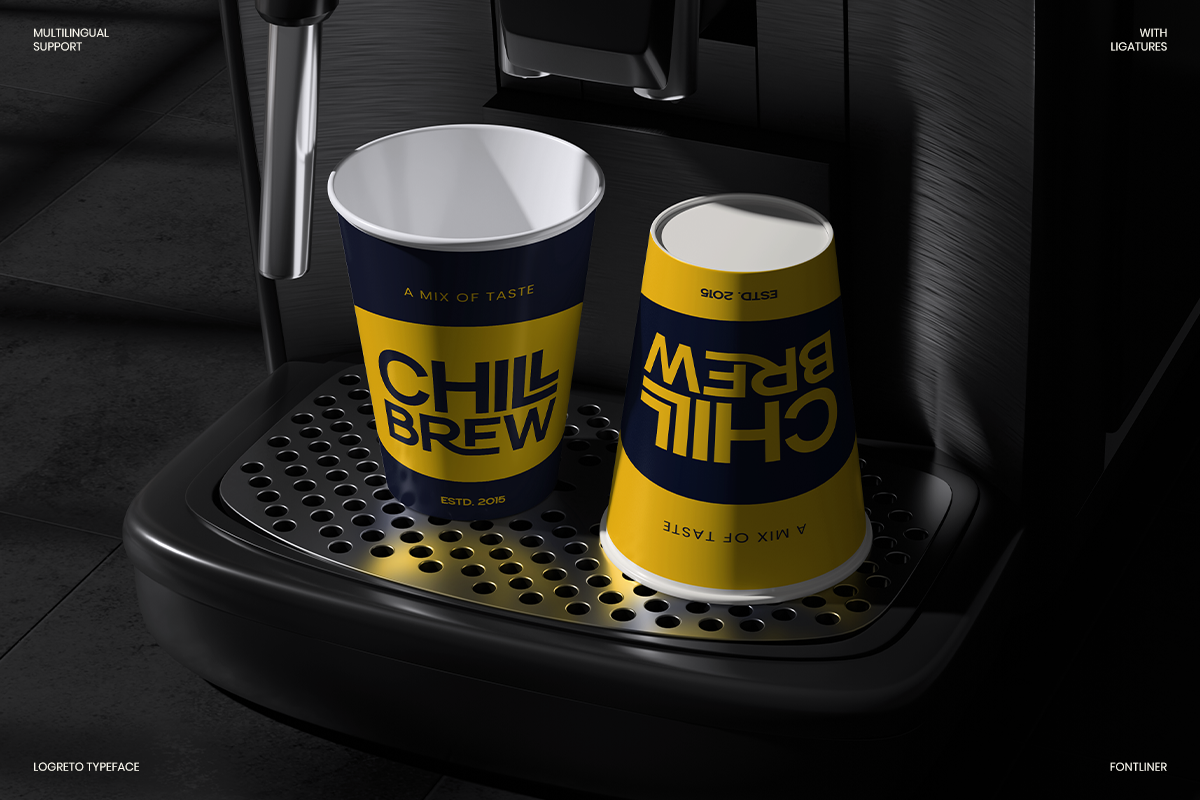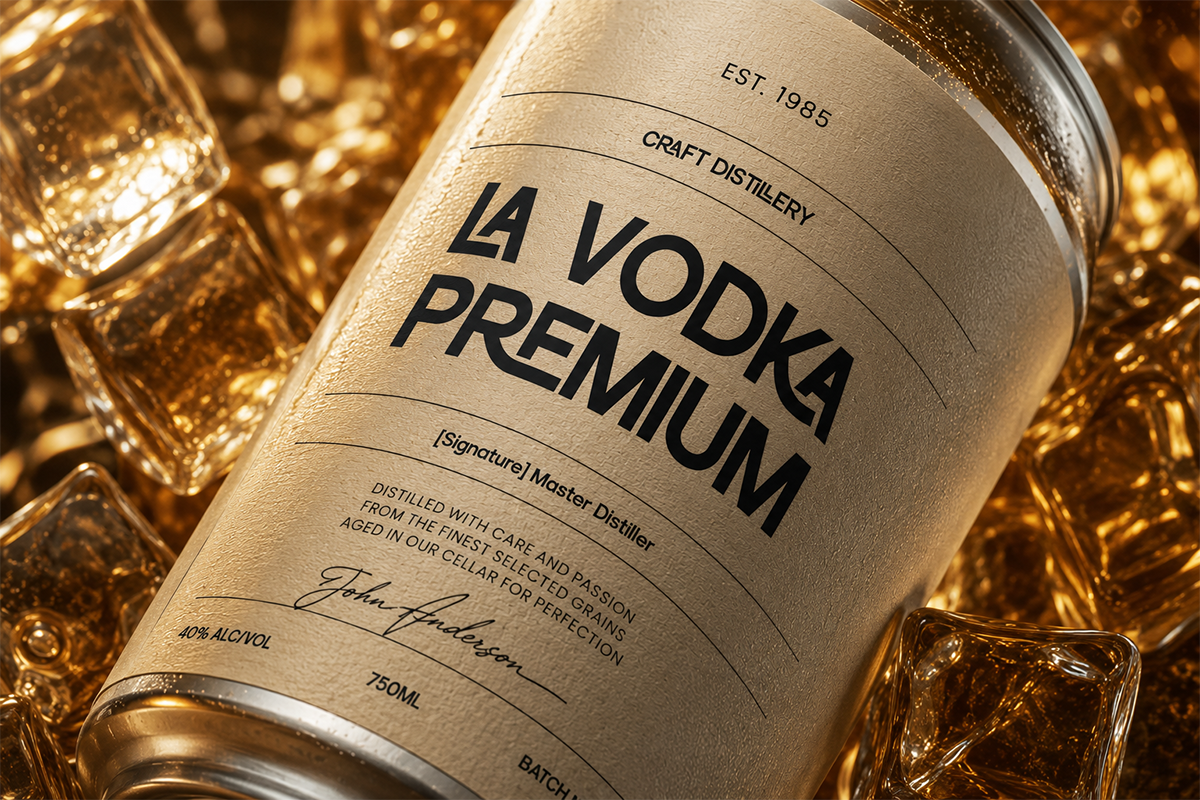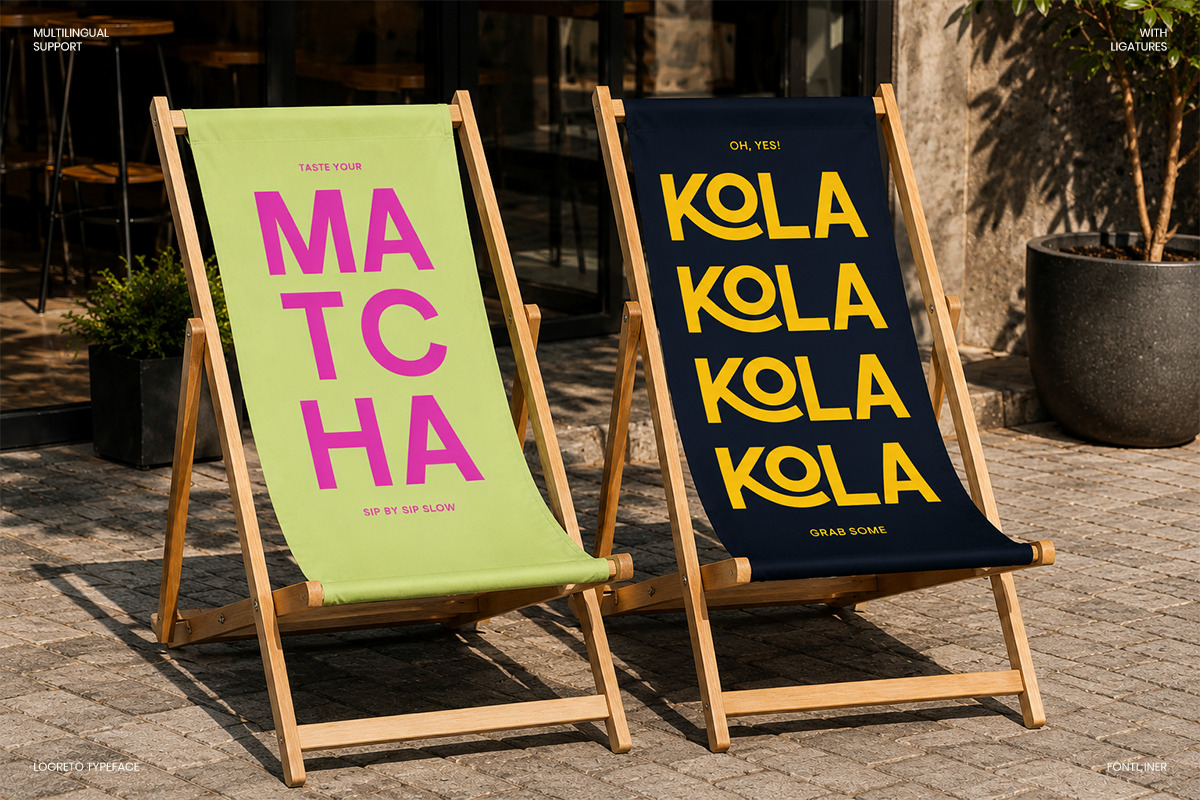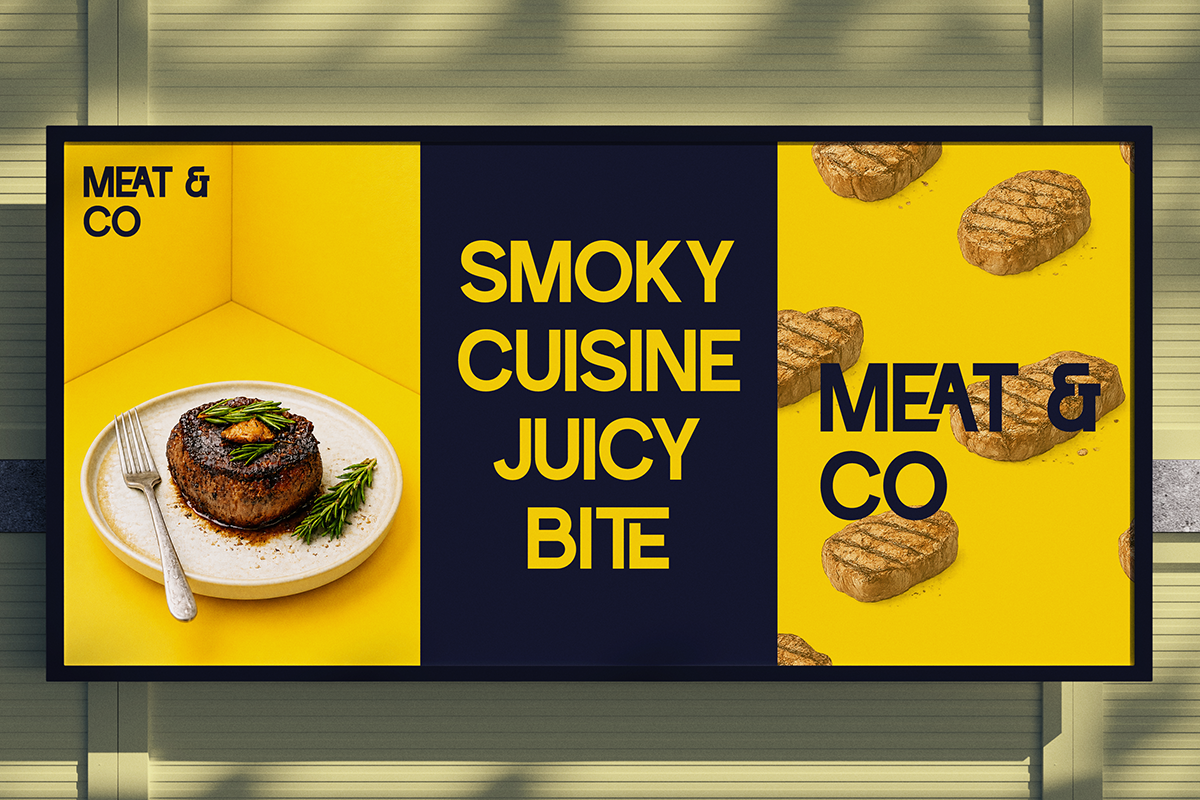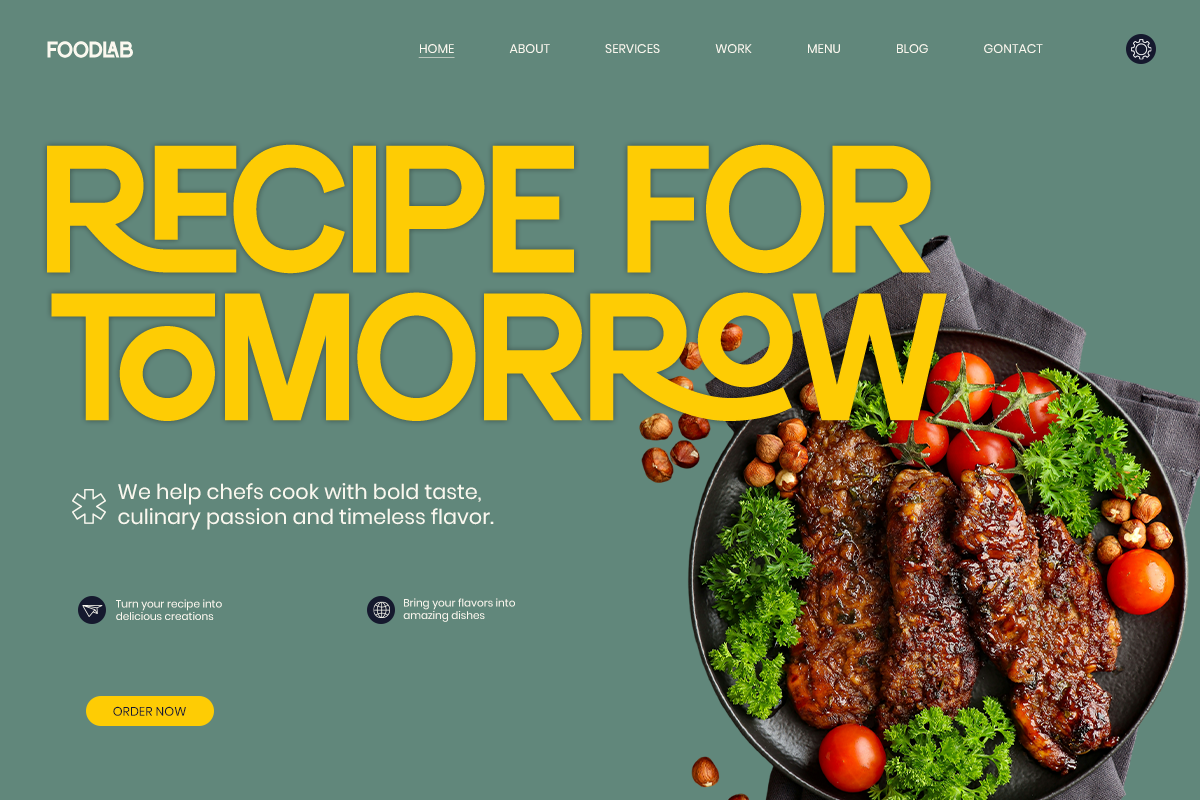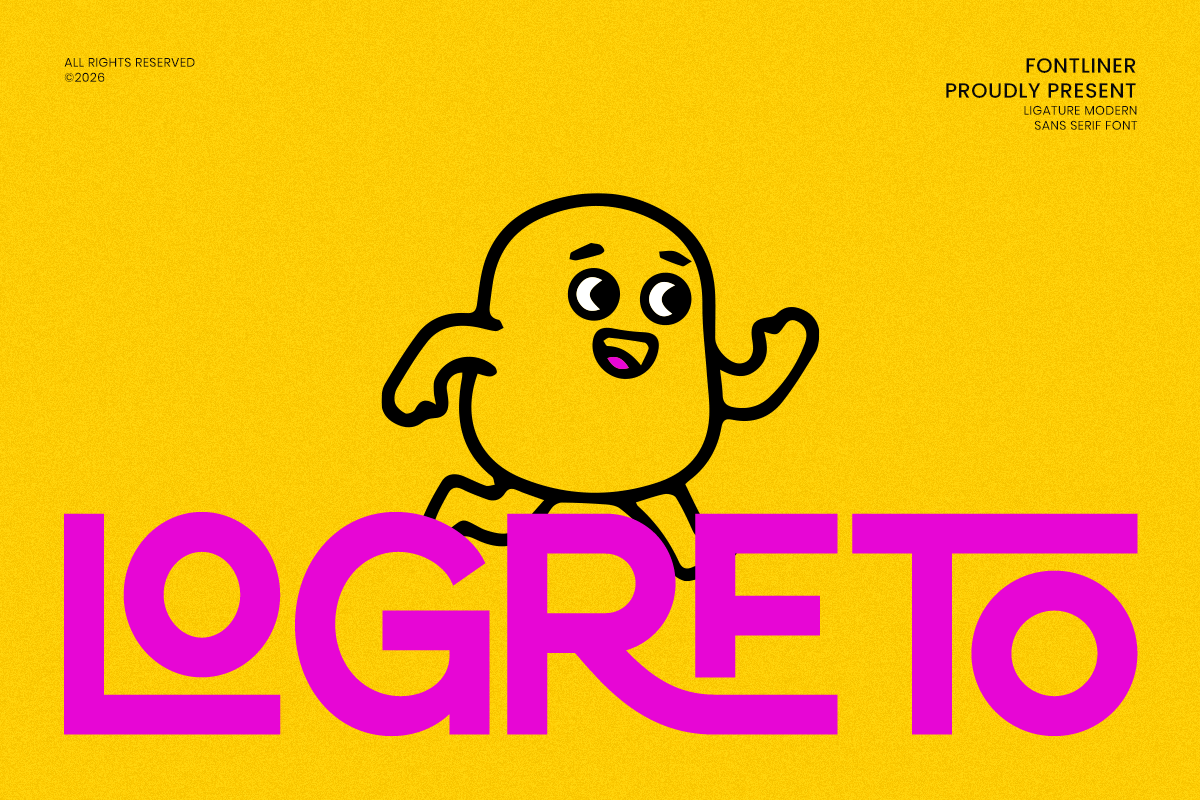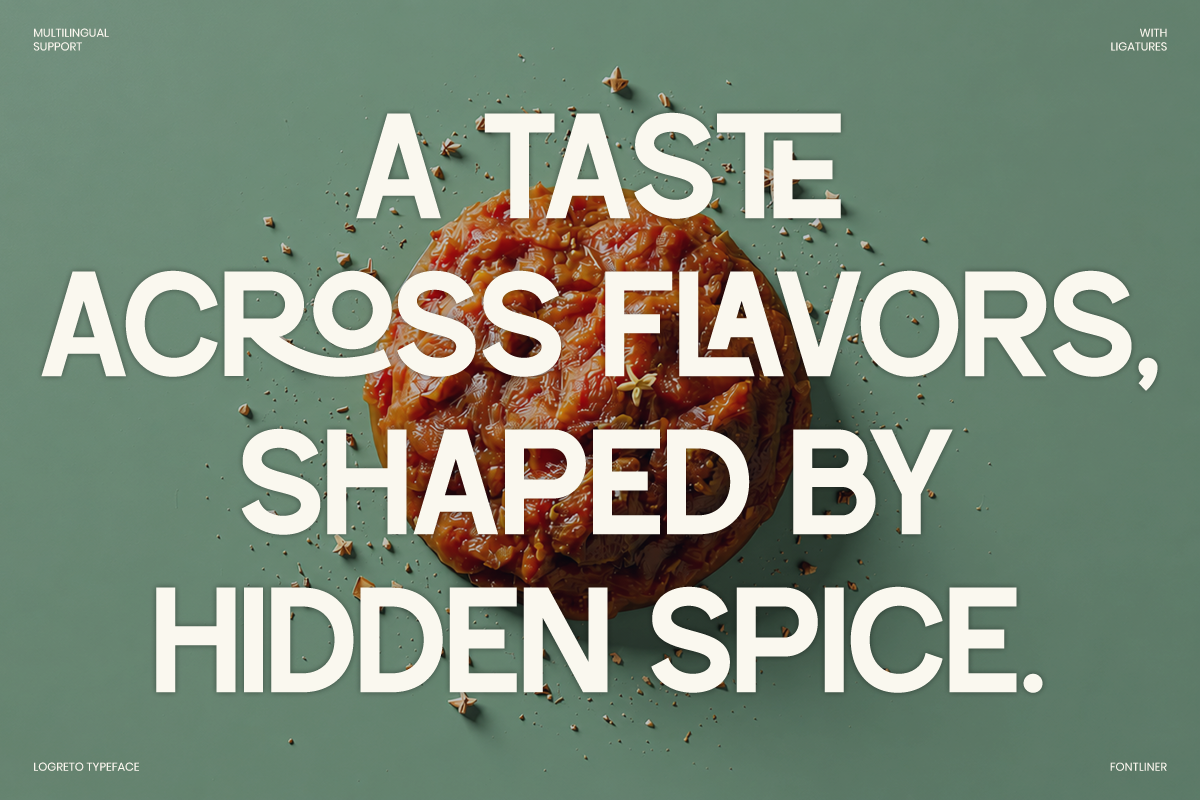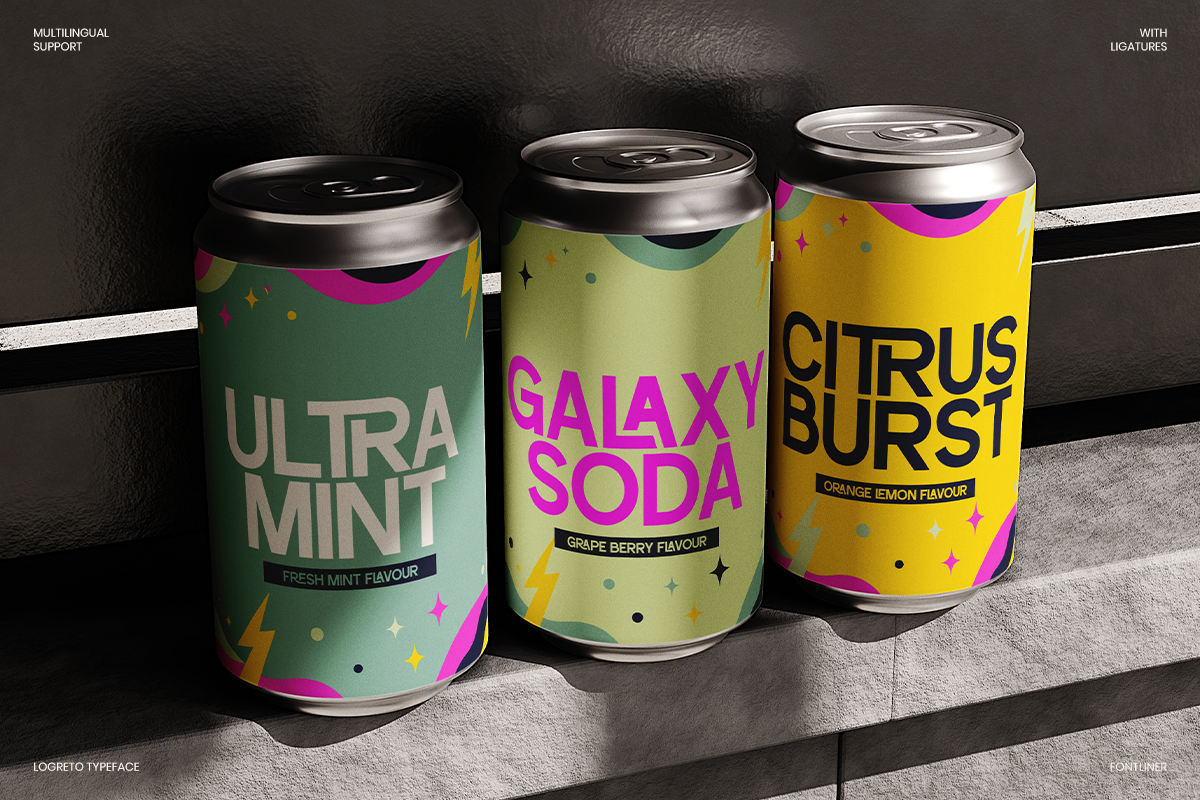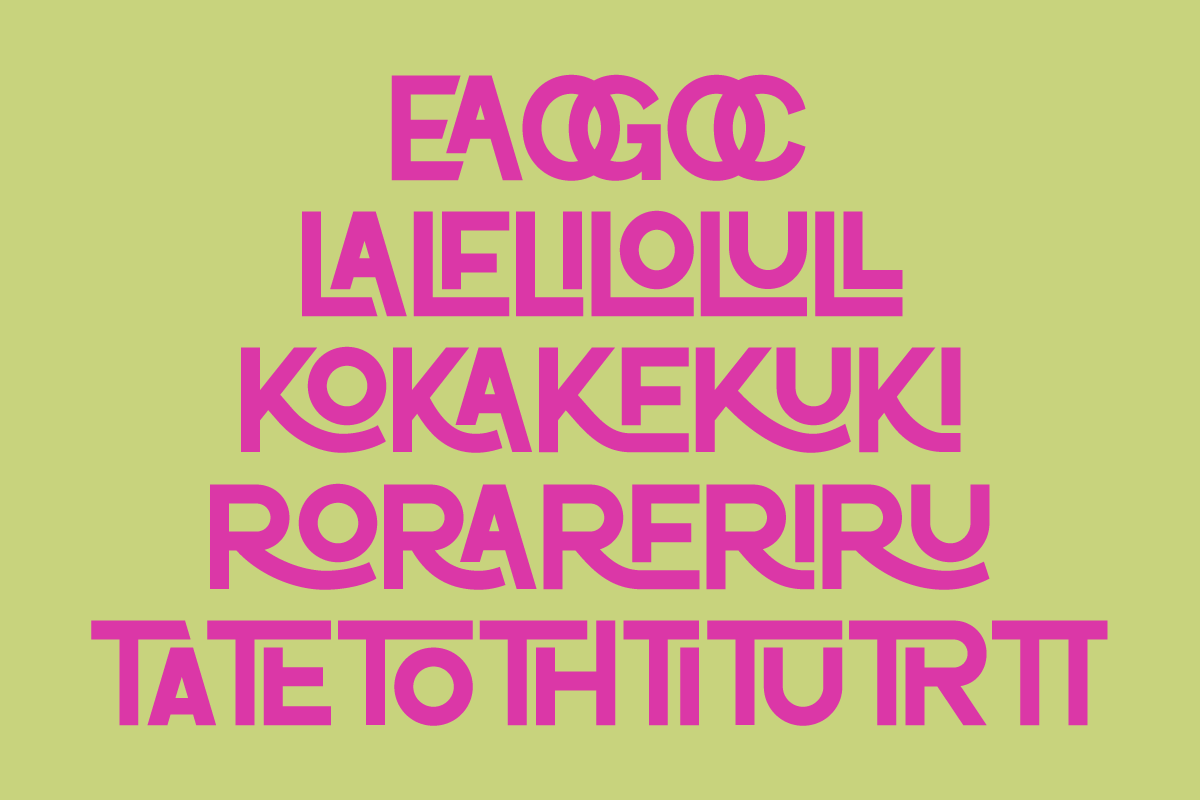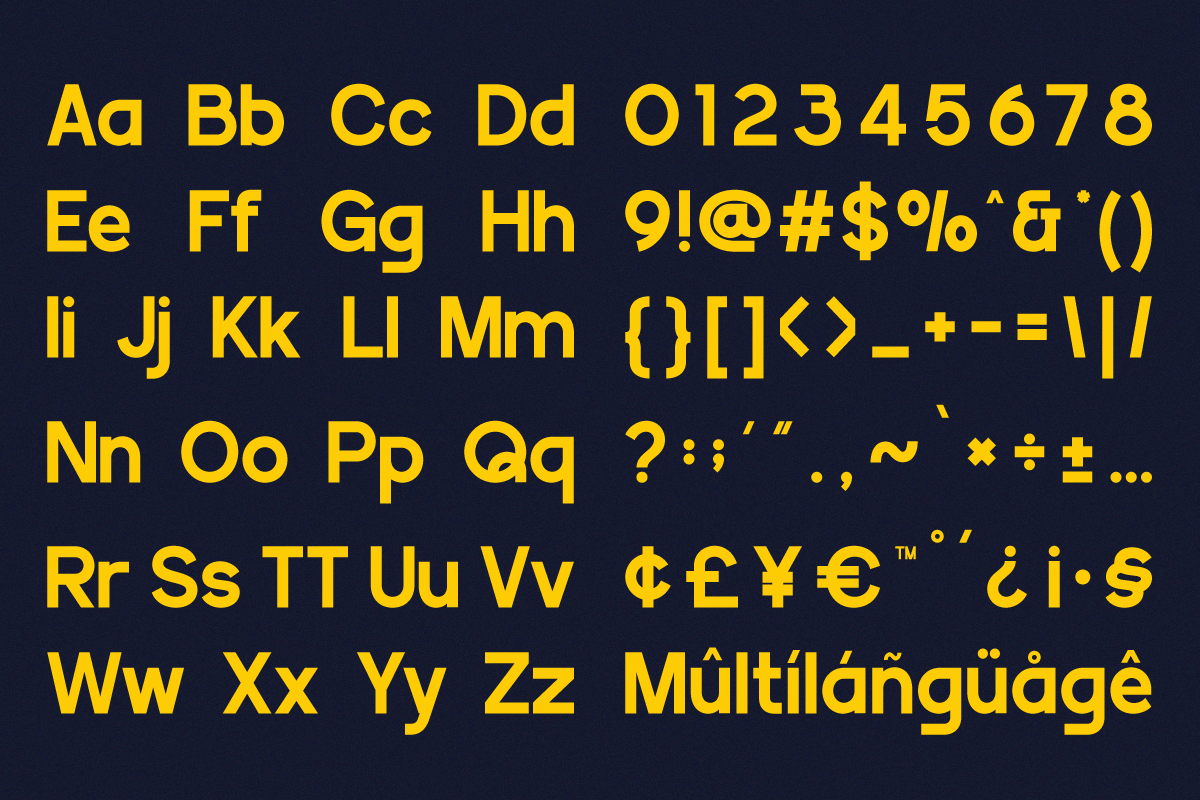
Logreto - Ligature Geometric Font
Logreto is a bold geometric display font designed to create unforgettable branding with a clean, modern personality. Featuring thick letterforms, balanced proportions, and eye-catching shapes, it instantly grabs attention across logos, headlines, and promotional graphics. Its contemporary style makes it perfect for brands that want to appear fresh, energetic, and memorable.
Built for commercial design, Logreto shines in food packaging, beverage labels, restaurant branding, café identities, product packaging, menus, and retail campaigns. Whether you're designing coffee cups, soda cans, snack boxes, premium labels, or advertising materials, this font delivers outstanding visibility while maintaining excellent readability at every size.
Beyond packaging, Logreto is ideal for posters, editorial layouts, social media graphics, websites, apparel, merchandise, corporate branding, creative campaigns, and digital marketing. Complete with uppercase, lowercase, multilingual support, numerals, punctuation, and stylistic alternates, Logreto is a versatile display font made for designers who want bold typography that stands out in both print and digital media.
Regular and Italic
Stylistic Ligatures
Number, Symbol, and Punctuation
Multi Language Support